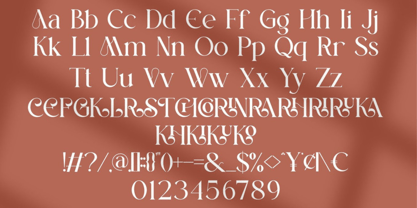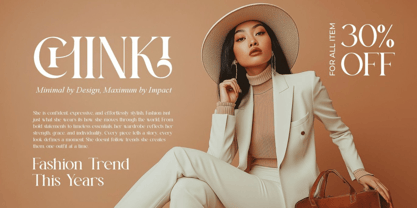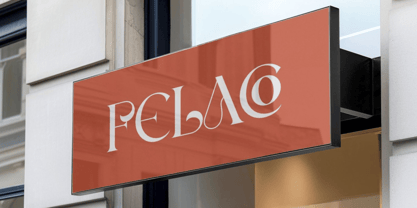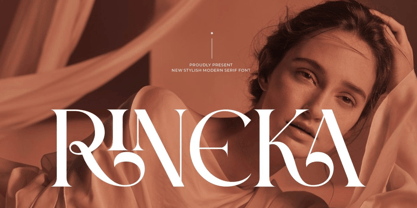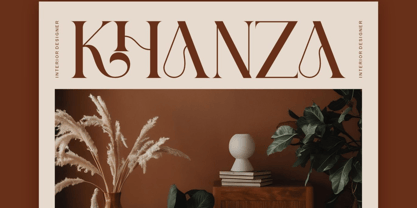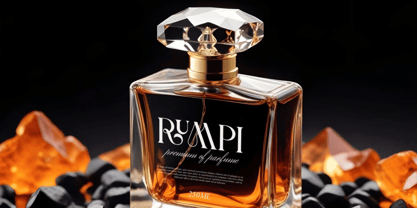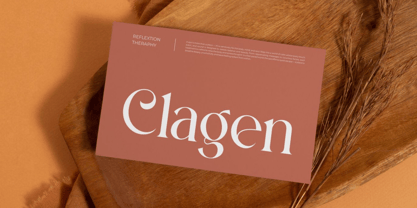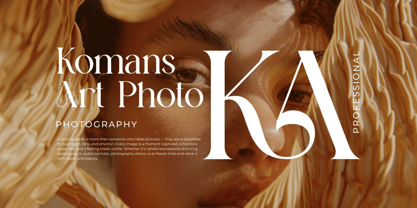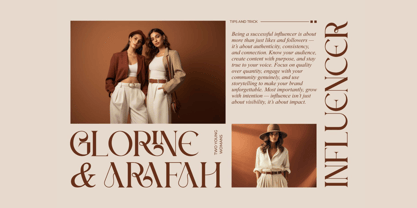
Rmesda
Rmesda Serif is a contemporary and stylish serif font that brings sophistication, character, and clarity to your design projects. With smooth letterforms and graceful ligatures, Rmesda blends timeless elegance with a clean, modern edge—making it a perfect choice for high-end branding, logo design, editorial work, and more.
From chic invitations and bold titles to professional business cards and product packaging, Rmesda Serif enhances your typography with luxury and precision.
Key Features:
• Uppercase & Lowercase Letters
• Elegant Ligatures for stylish combinations
• Numerals & Punctuation
• Multilingual Support
Perfect For:
• Brand identities & modern logos
• Invitation cards & wedding stationery
• Editorial layouts & book titles
• Movie posters & cover art
• Stylish social media graphics
• Business cards & packaging
Add refined charm to your typography with Rmesda Serif — where modern design meets timeless elegance.